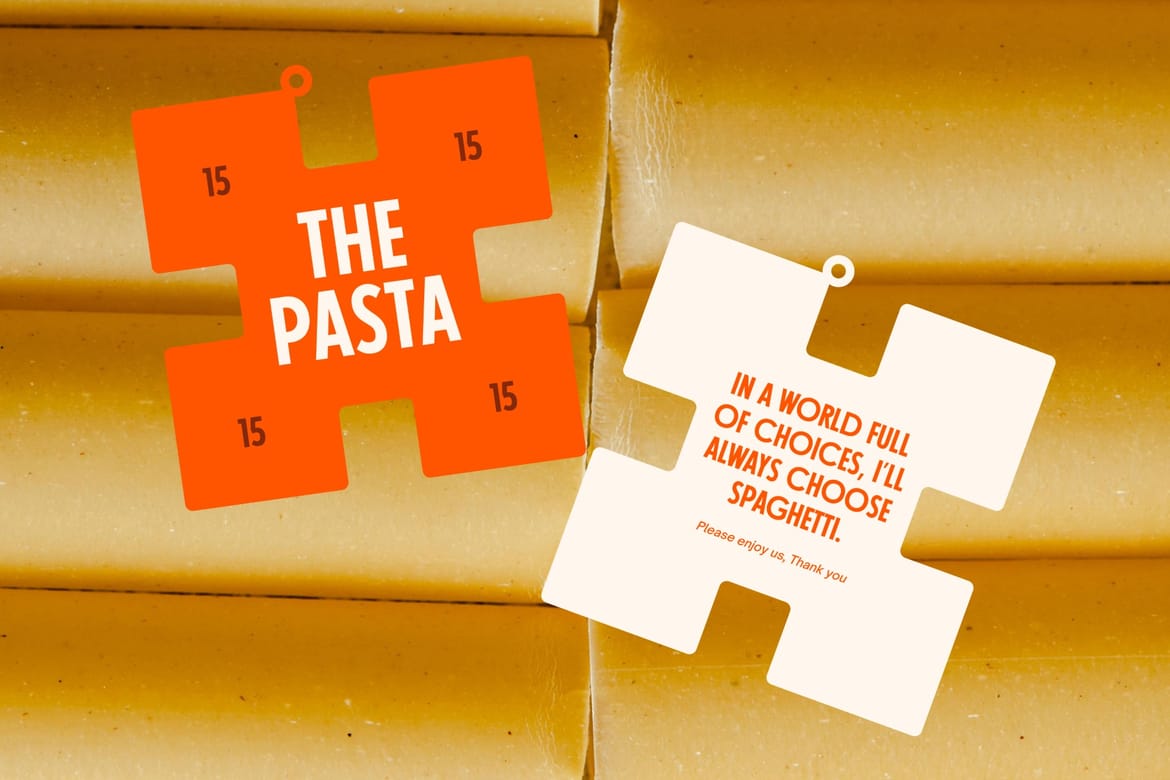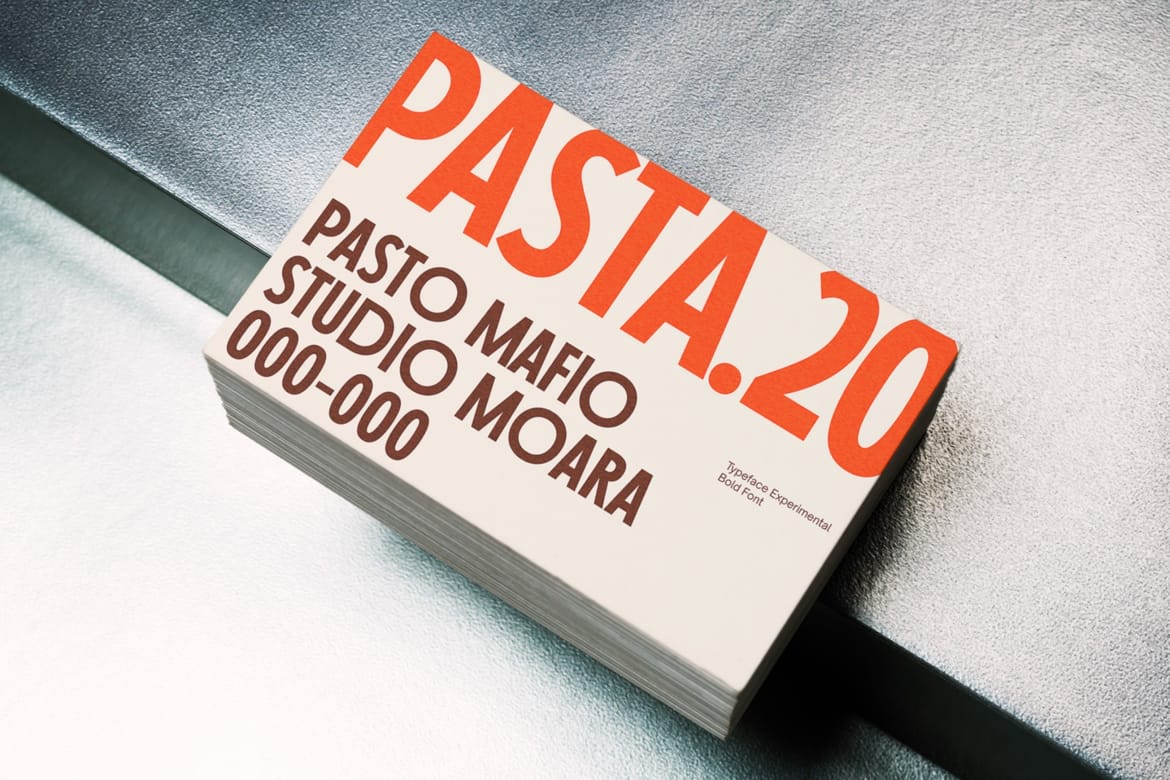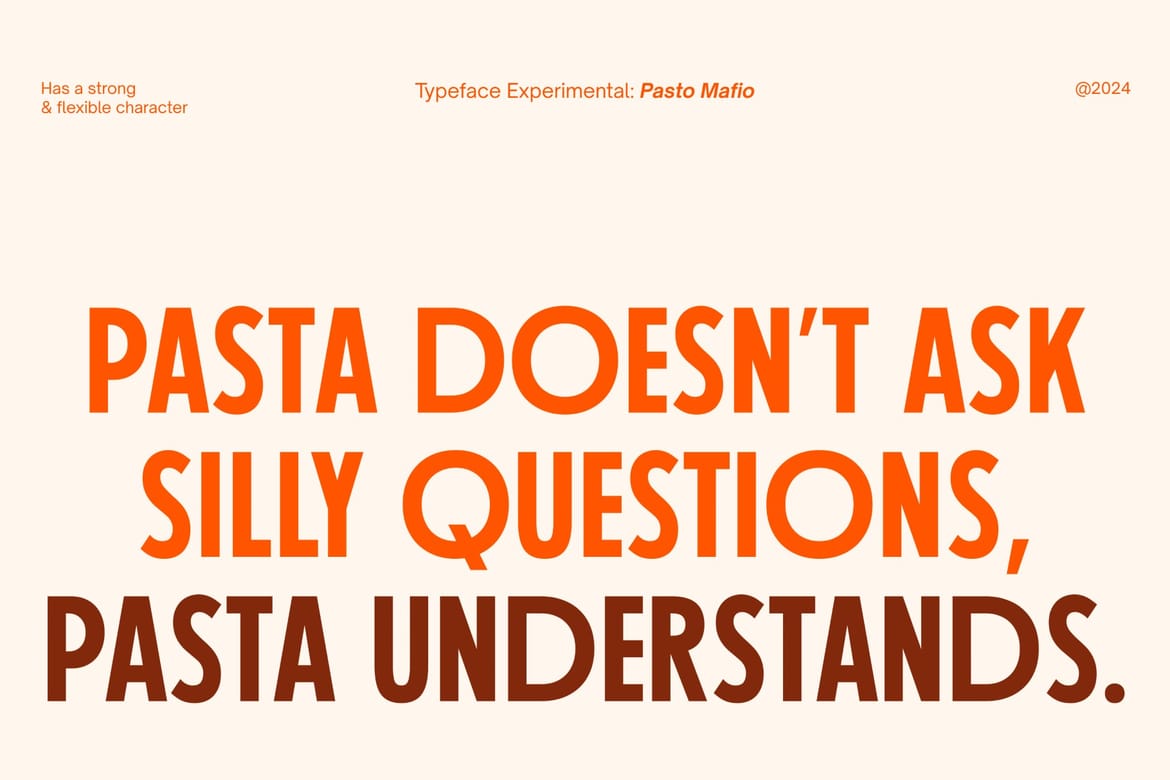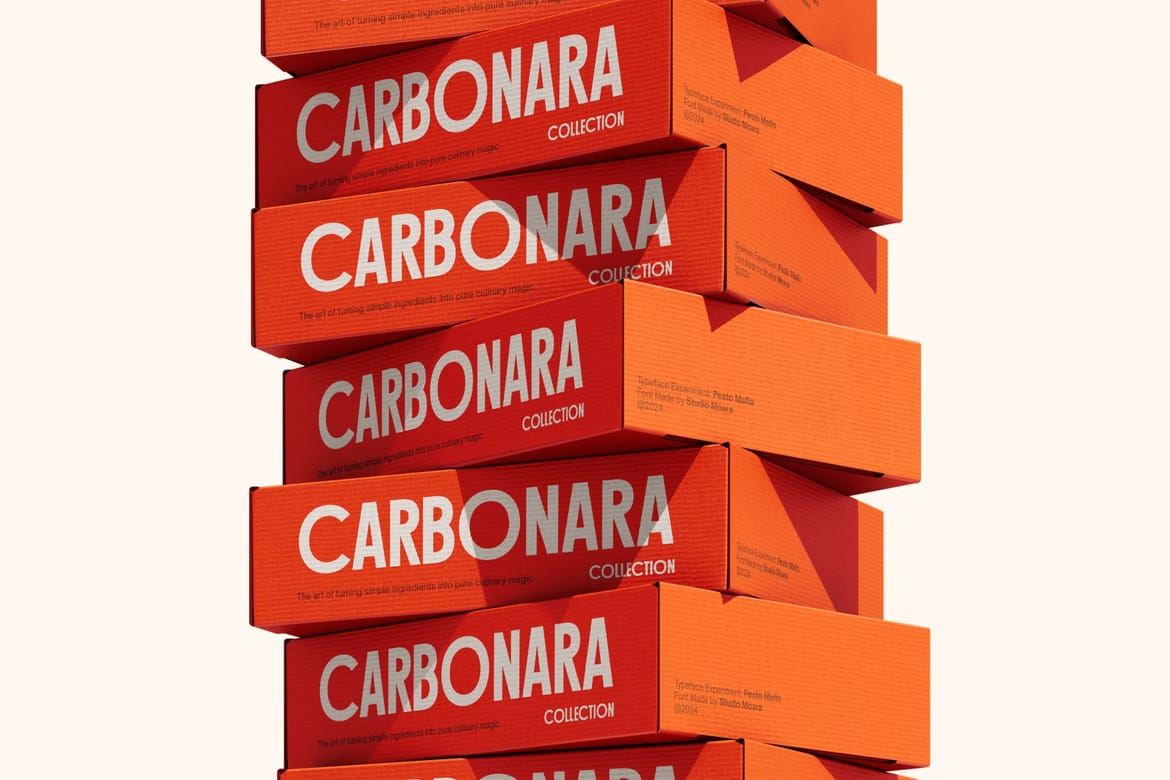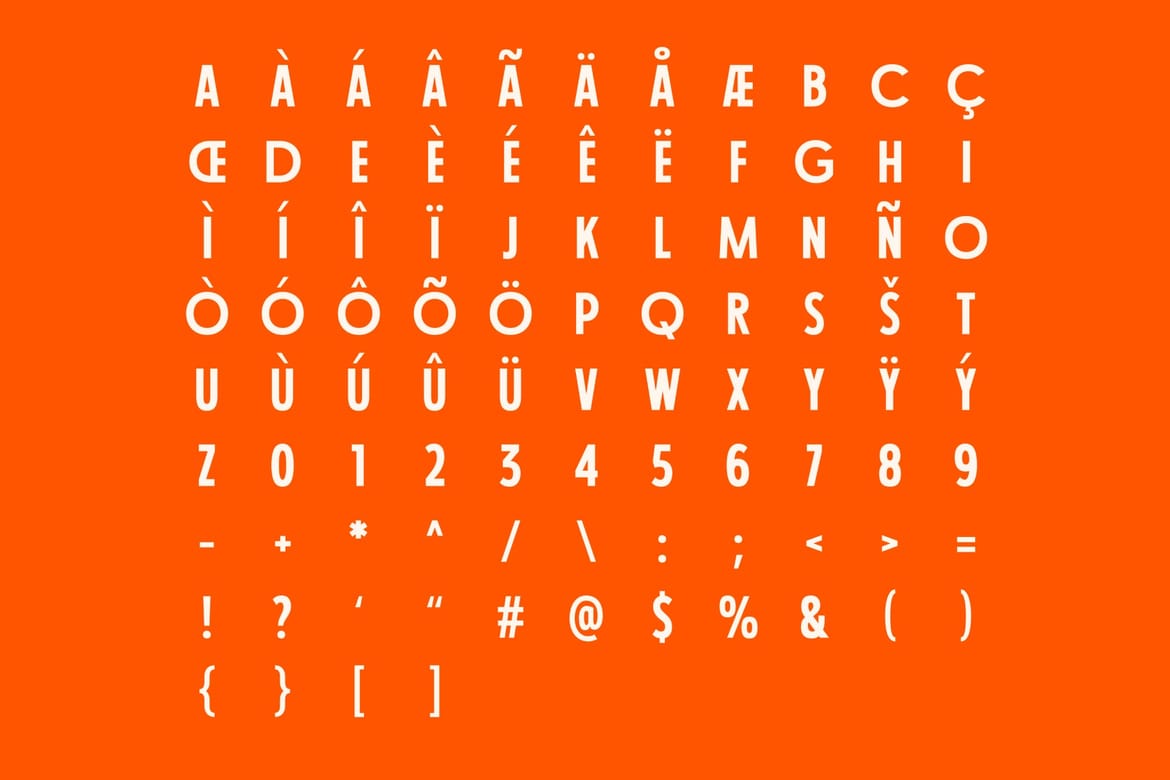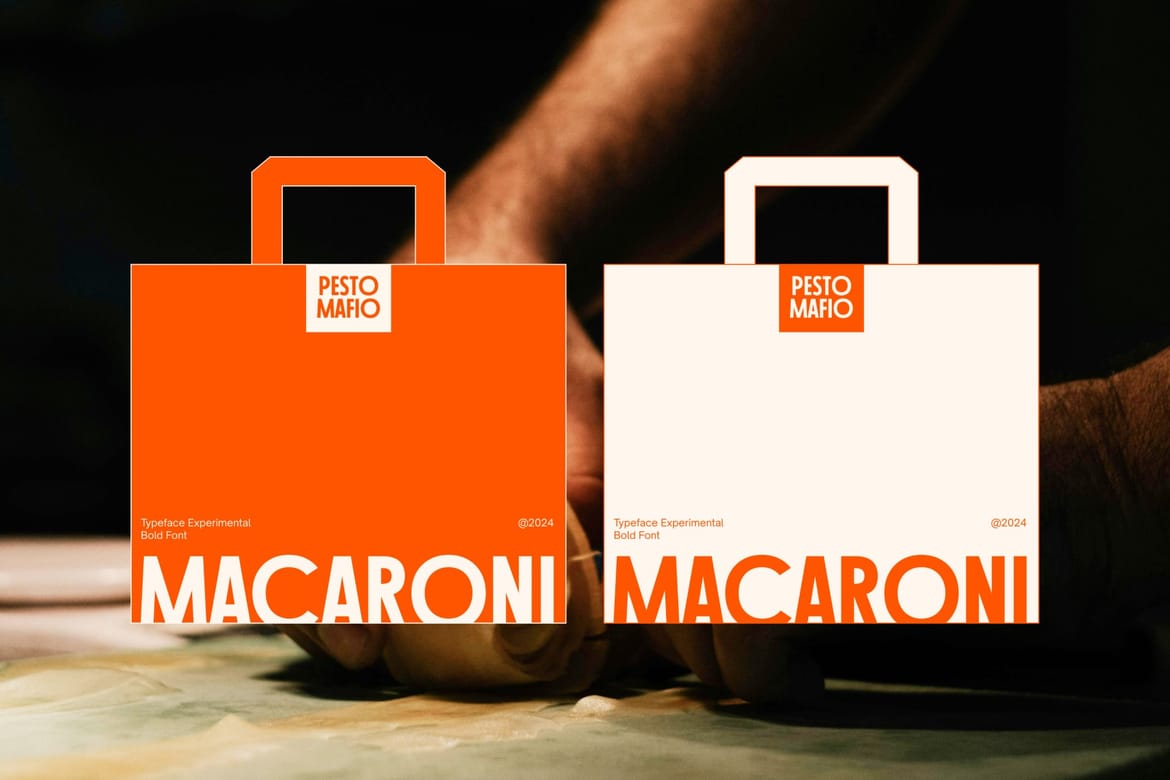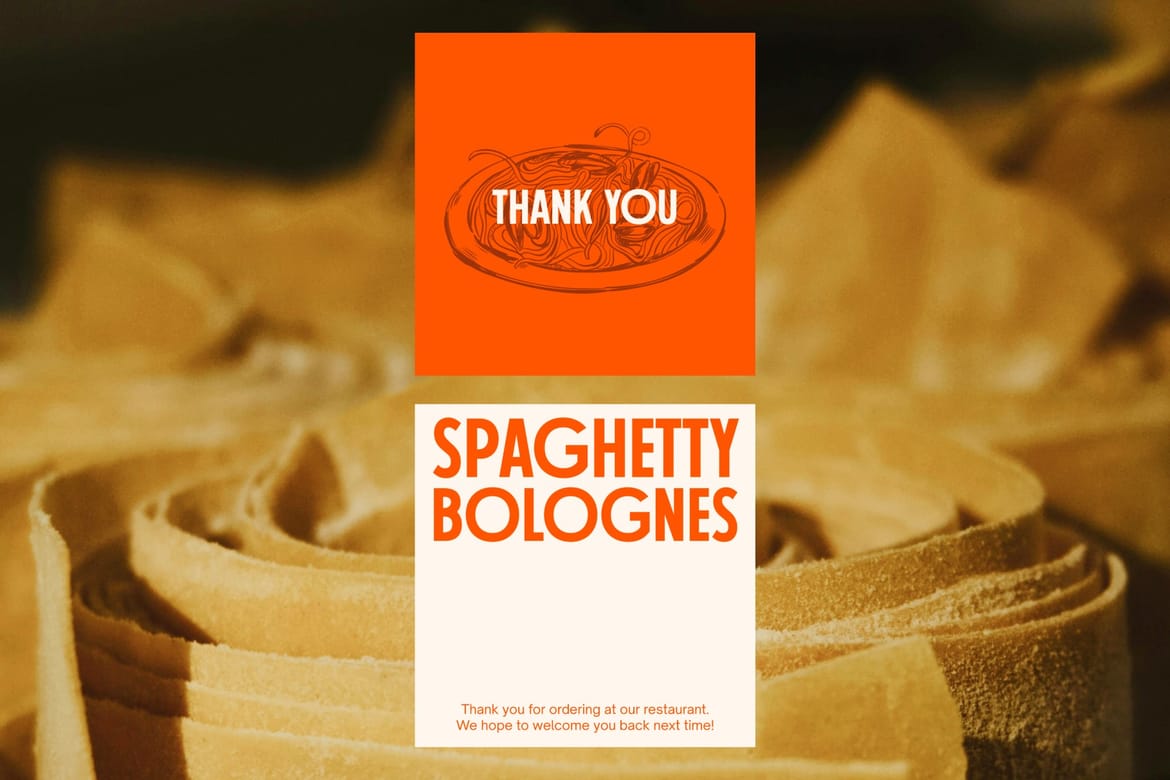
Pesto Mafio is a bold, impactful sans-serif font perfect for making a statement. With its strong, condensed letterforms, it commands attention in headlines, logos, and branding. Inspired by Italian design, Pesto Mafio offers a touch of classic style with a modern edge. Ideal for projects needing a powerful and memorable typographic presence.
Clean bold sans-serif with a strong modern attitude
Perfect for streetwear branding, poster headlines, and contemporary visual identities
Tall geometric shapes create a confident high-impact look that feels bold and stylish